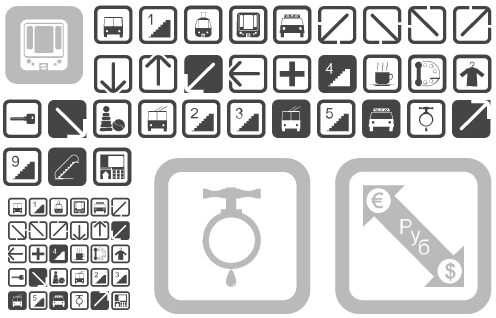
Notice2Std by Denis A Serikov is a free wayfinding dingbat font built from compact public-information pictograms. Sturdy, economical strokes and rounded-square enclosures turn tools, markers, and service images into recognizable silhouettes.
Transit maps and venue signage can use its direct visual shorthand, yet the same utilitarian drawing style suits game interfaces. It can also supply instructional graphics with a consistent family of emblem-like signs. Its clearest audience is designers working on navigation, transport, public services, or simulation themes.